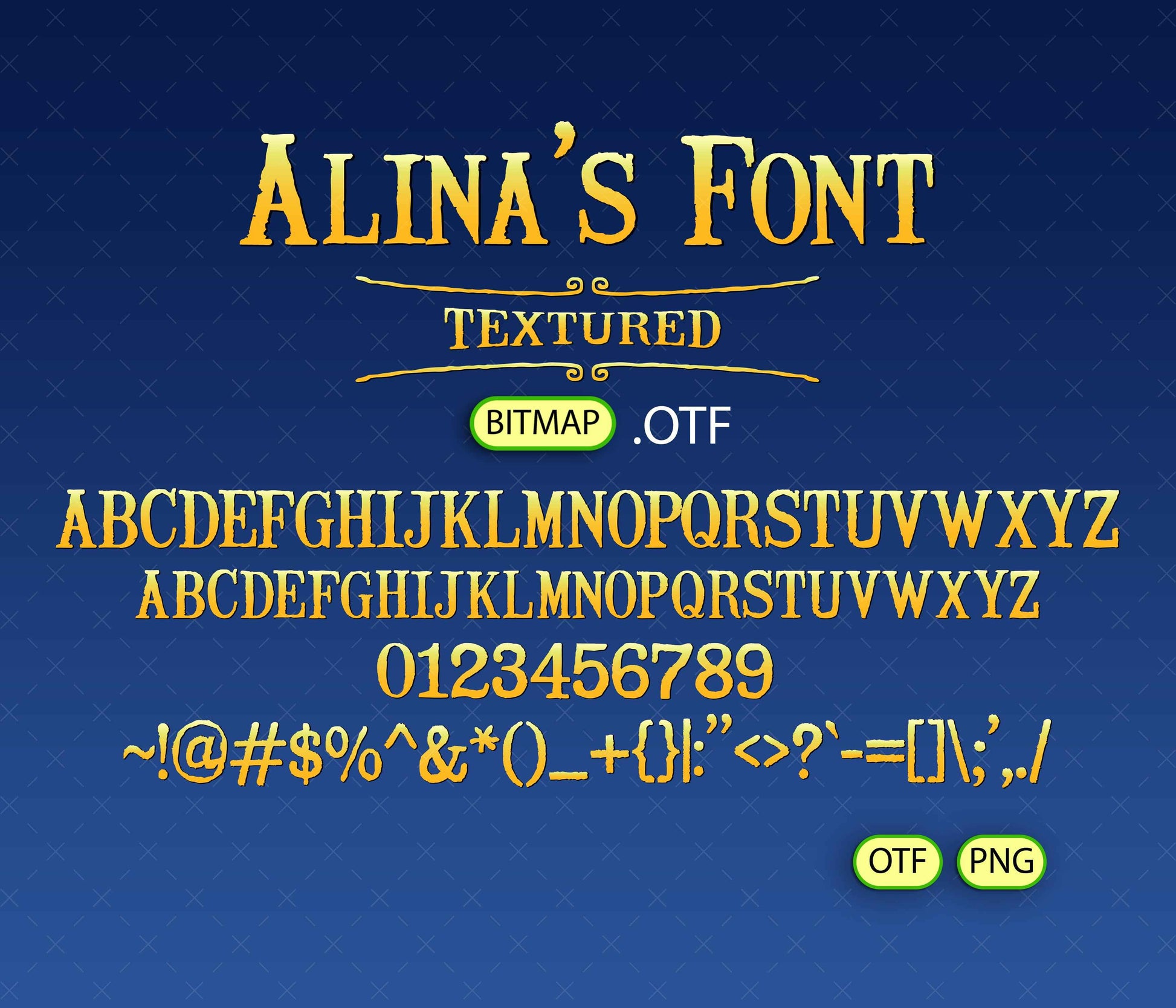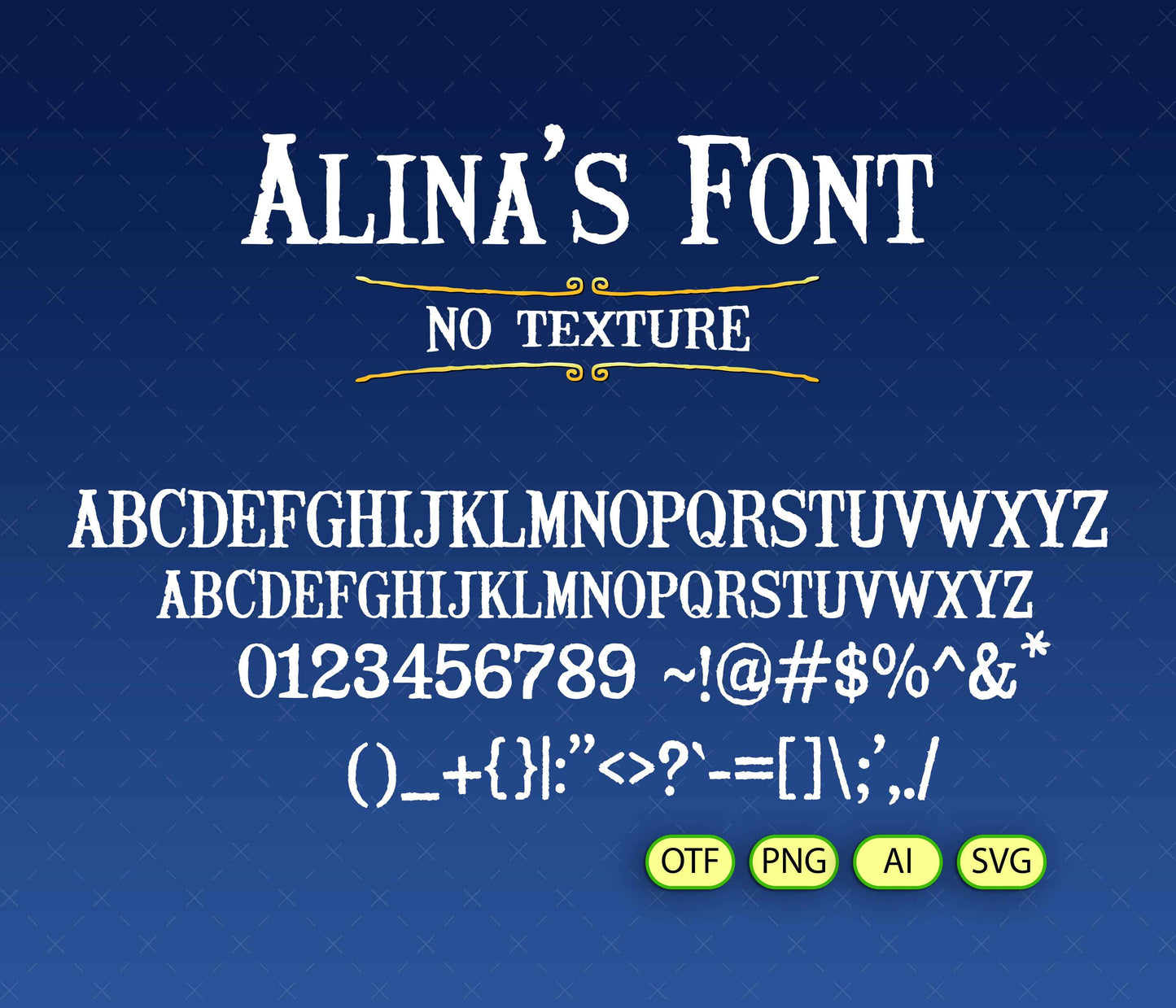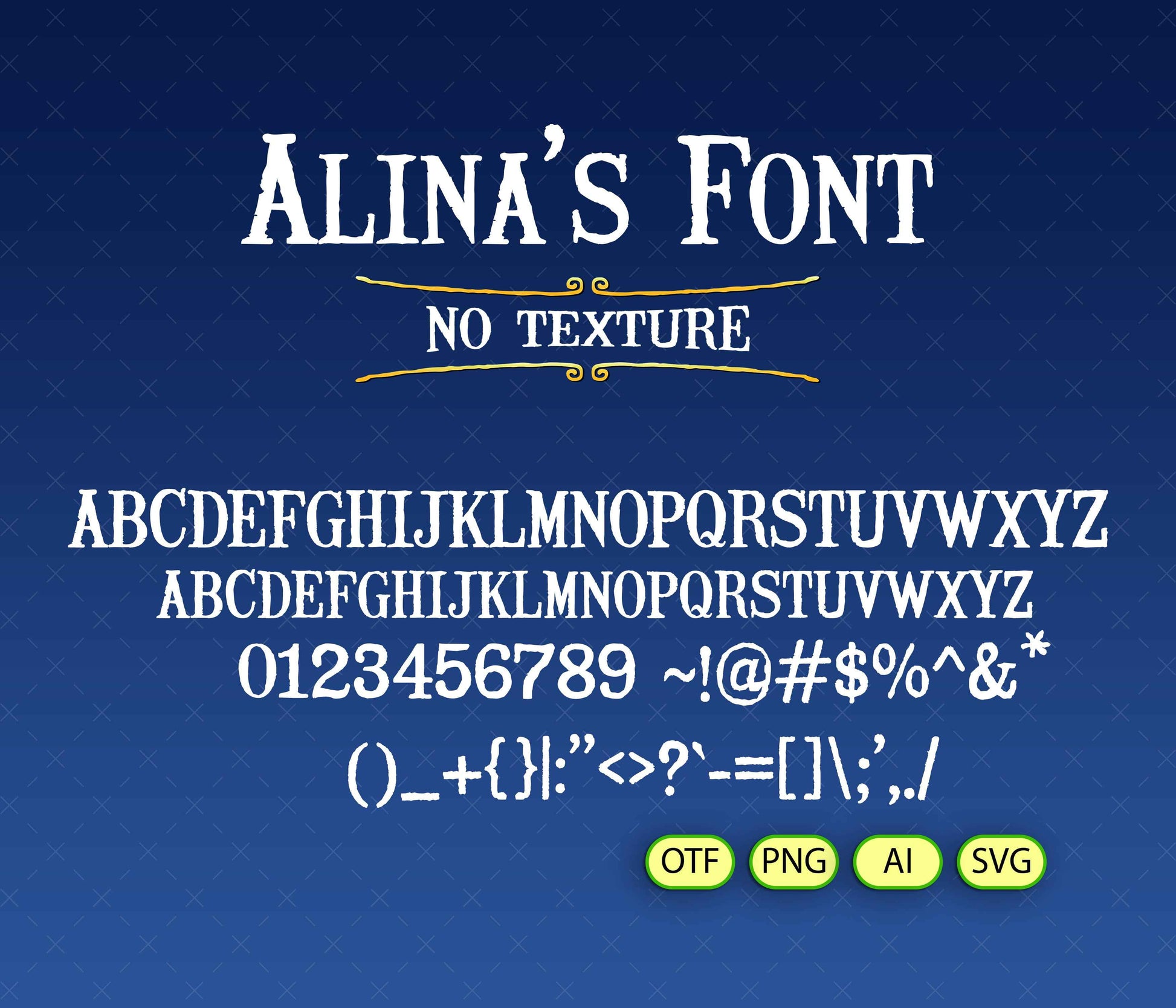
Fantasy Quest Font Textured
Enchanted Glyphs Textured Font: A Fantasy Typographic Quest
Embark on a typographic adventure to the whimsical world with the Enchanted Glyphs Textured Font. This font is a loving ode to the quirky, medieval fantasy realm of Dreamland, where the headstrong Princess reigns. Every character in this textured font is a tale of whimsy and daring, adorned with patterns inspired by the charming yet satirical landscape of the fantasy.
The Enchanted Glyphs Textured Font is an artisan’s key to unlocking a world of medieval fantasy, perfect for crafting intriguing cake toppers, enchanting birthday invitations, or whimsical t-shirt designs. This font is a bridge between the mundane and the magical, allowing you to bring a slice of Dreamland’s satirical charm into the earthly realm.
With its rich textures and imaginative patterns, this font isn’t just a collection of letters; it’s a narrative tool that transports you to a land of knights, princesses, and amusing escapades. As you craft your projects with the Enchanted Glyphs Textured Font, every stroke unveils a tale, every letter a step into the playful mystique of this fantastical world.